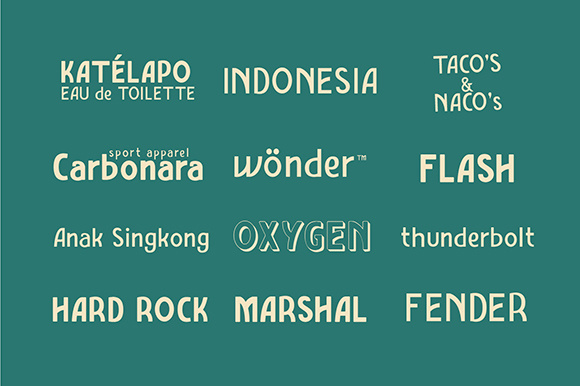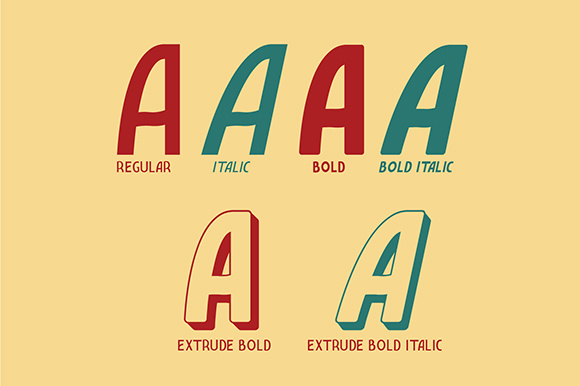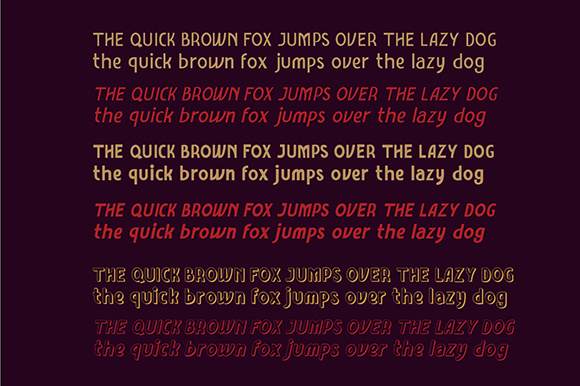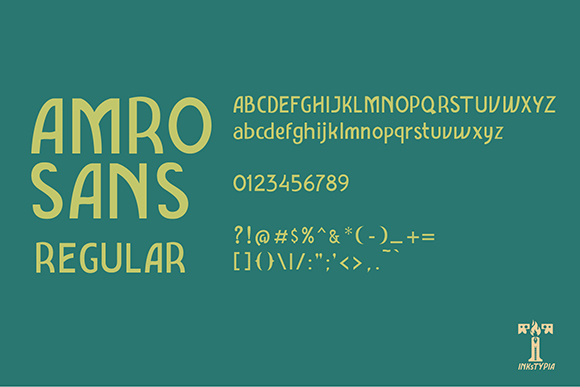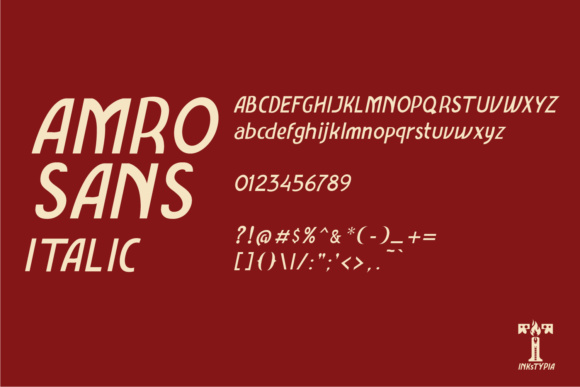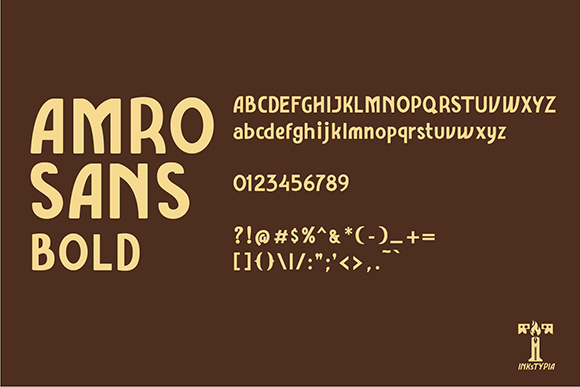
Introducing Amro Sans Family Font: A Retro-Style Typeface for Modern Designs
In the world of typography, fonts play a crucial role in conveying the message and aesthetic of a design. For designers and crafters, finding the perfect font can be a daunting task. However, if you’re looking for a unique and versatile typeface, look no further than the Amro Sans Family Font. This retro-style typeface family consists of 6 distinct styles, making it an excellent choice for a wide range of design applications.
What is Amro Sans Family Font?
Amro Sans is a carefully crafted typeface family that embodies the spirit of retro design while maintaining a modern edge. With 6 unique styles, this font family offers a range of possibilities for designers and crafters. Whether you’re looking to create a bold headline, a stylish logo, or an eye-catching label, Amro Sans has got you covered.
Key Features of Amro Sans Family Font
- Retro-style aesthetic: Amro Sans boasts a distinctive retro-style design that is sure to add a touch of nostalgia to your projects.
- 6 unique styles: The font family includes 6 different styles, providing you with a range of options to suit your design needs.
- Suitable for text display and headlines: Amro Sans is optimized for use in both text display and headlines, making it a versatile choice for a variety of design applications.
- Ideal for logos and labels: The font’s unique style and versatility make it an excellent choice for creating logos, labels, and other graphical elements.
Benefits of Using Amro Sans Family Font
So, why choose Amro Sans Family Font for your design projects? Here are just a few benefits of using this exceptional typeface:
- Stand out from the crowd: With its unique retro-style aesthetic, Amro Sans is sure to help your designs stand out from the crowd.
- Versatility: The font family’s 6 different styles provide a range of options for designers, making it suitable for a wide range of applications.
- Easy to read: Despite its retro aesthetic, Amro Sans is designed to be easy to read, making it perfect for use in both headlines and body text.
- Customizable: With 6 different styles to choose from, you can mix and match to create a unique look that suits your design needs.
Who Can Benefit from Amro Sans Family Font?
Amro Sans Family Font is an excellent choice for a range of designers and crafters, including:
- Graphic designers: Looking for a unique and versatile font to add to their collection.
- Log designers: Seeking a font that can help create a distinctive and memorable logo.
- Digital artists: Looking for a font that can add a touch of retro flair to their digital art.
- Crafters: Creating handmade products, such as signs, labels, and other decorative items.
How to Use Amro Sans Family Font
Here are a few tips for getting the most out of Amro Sans:
- Experiment with different styles: Try mixing and matching the different styles to create a unique look.
- Use it for headlines and text display: Amro Sans is optimized for use in headlines and text display, making it perfect for adding a touch of retro flair to your designs.
- Pair it with other fonts: Amro Sans can be paired with other fonts to create a unique and visually appealing design.
In conclusion, Amro Sans Family Font is an exceptional typeface that offers a unique blend of retro-style aesthetic and modern versatility. With its 6 distinct styles, this font family is suitable for a wide range of design applications, from headlines and text display to logos and labels. Whether you’re a graphic designer, log designer, digital artist, or crafter, Amro Sans is sure to become a valuable addition to your design toolkit.